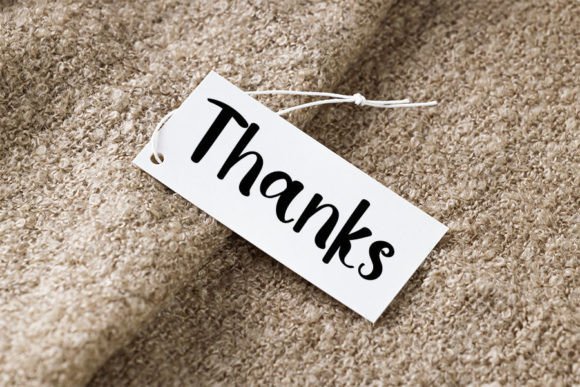
Introduction to Hello Bestie Font
Have you ever stumbled upon a beautiful design online and thought to yourself, “I wish I could recreate that magic in my own creative project”? As designers, we’ve all been there – browsing through social media, stumbling upon a stunning graphic, and feeling inspired to bring our own unique ideas to life. One design element that can elevate any project is a beautiful font, and that’s where the Hello Bestie Font comes in.
This charming, handwritten font is more than just a pretty face – it’s a versatile design resource that can add a personal touch to any creative endeavor. With its friendly feel and high-quality aesthetic, the Hello Bestie Font is perfect for designers looking to add a unique twist to their work. Whether you’re creating a social media graphic or a DIY project, this font is sure to make your design stand out.
Key Features of Hello Bestie Font
- High-quality design resource ideal for creative projects, offering a unique and playful touch.
- Features a transparent background, allowing for seamless integration into any design, from digital to print media.
- Includes a range of characters, including uppercase and lowercase letters, numbers, and special symbols, making it a versatile design resource.
- Designed with a modern and feminine aesthetic, perfect for projects targeting a female audience or requiring a soft, elegant look.
Honest Review: Hello Bestie Font
I recently came across the Hello Bestie Font, and I was excited to give it a try in my next creative project. As a designer, I’m always on the lookout for high-quality design resources that can elevate my work.
Here are some things that work well with the Hello Bestie Font:
- ✨ The font’s playful and cursive script makes it perfect for adding a touch of whimsy to my designs.
- ✨ The transparent background option makes it easy to layer with other design elements.
- ⚠️ The font may not be suitable for formal or professional projects, due to its casual and playful nature.
- ⚠️ The font only comes in one style, which may limit its versatility.
The Hello Bestie Font is a versatile design resource suitable for a variety of creative projects, including social media graphics, blog posts, and print materials. Its high quality and transparent background make it an ideal choice for designs that require a clean and modern look.
To get the most out of the Hello Bestie Font, be sure to use it in conjunction with a high-quality image or graphic to create a visually appealing design. Additionally, experiment with different font sizes and styles to create a unique and eye-catching look.